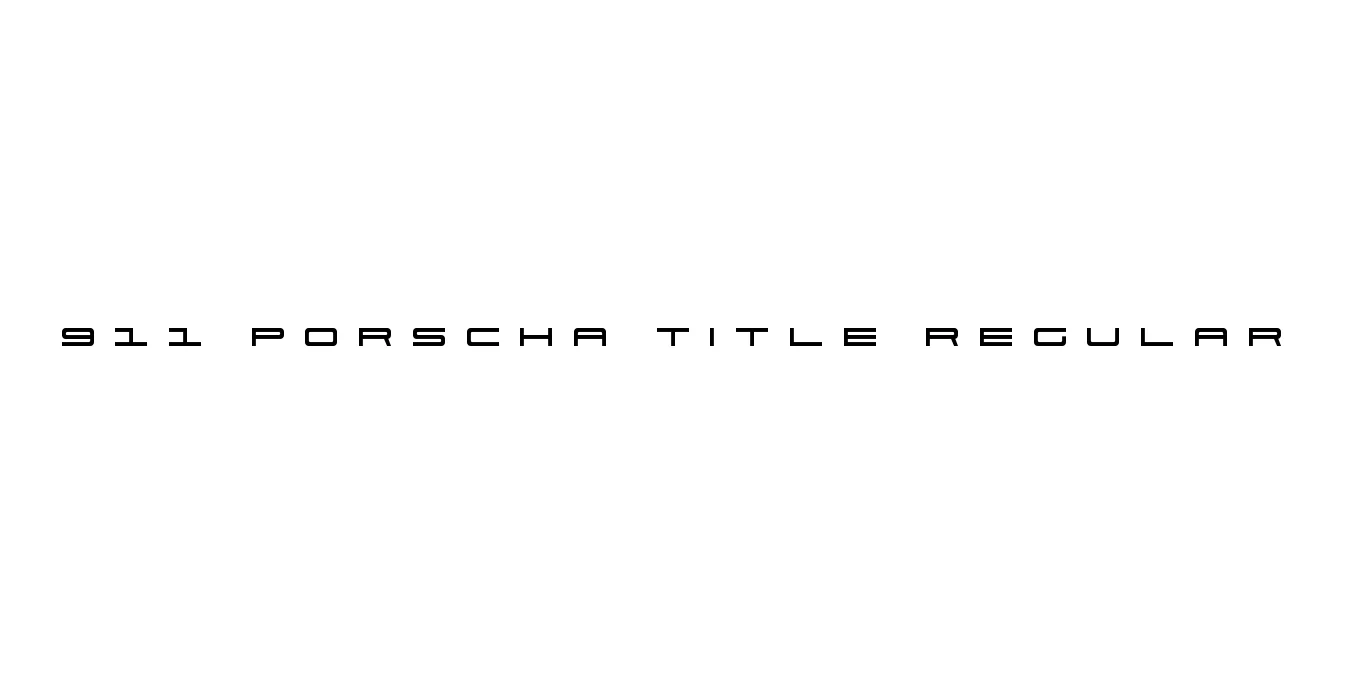
911 Porscha Title Regular
Designed by Iconian Fonts (Dan Zadorozny)
| Font Name | 911 Porscha Title |
| Category | Sans Serif / Display |
| Designer | Iconian Fonts (Dan Zadorozny) |
| Similar Fonts | Eurostile, Microgramma, Porsche News Gothic |
911 Porscha Title Regular is a distinctive display typeface heavily inspired by the sleek and iconic typography associated with the Porsche automotive brand. This font features a wide, geometric, and horizontal emphasis that immediately conveys a sense of speed, precision, and high-performance engineering. Its letterforms are characterized by clean, bold lines and a futuristic aesthetic that mirrors the design philosophy of high-end sports cars from the late 20th century.
Developed by the prolific studio Iconian Fonts, this typeface has become a favorite among graphic designers for projects requiring a technical or automotive flair. Its expanded proportions and consistent weight make it exceptionally legible for large-scale applications such as headers, signage, and decals. Whether used for branding or digital interfaces, 911 Porscha Title Regular provides a professional, authoritative look that stands out in modern design compositions.
911 Porscha Title Regular Best Uses
Ideal for car club logos, racing decals, and automotive marketing materials.
Perfect for high-speed sports graphics, gym branding, and performance gear.
Great for website banners and editorial titles that need a bold, horizontal presence.
Suitable for futuristic user interfaces, HUDs, and sci-fi gaming titles.